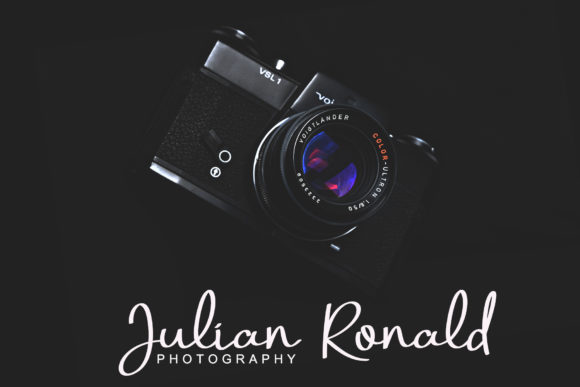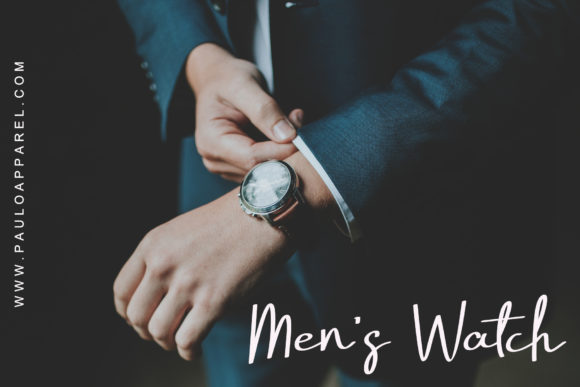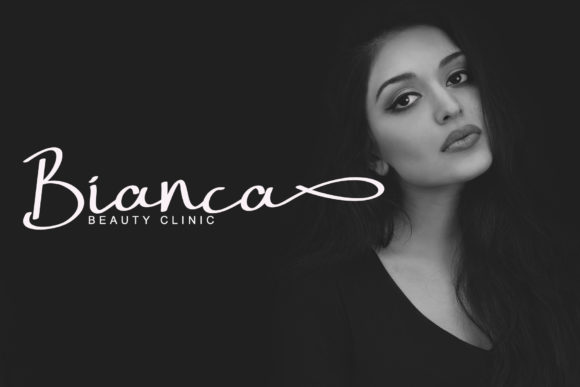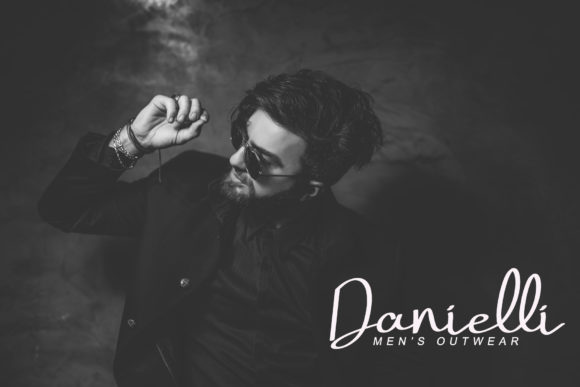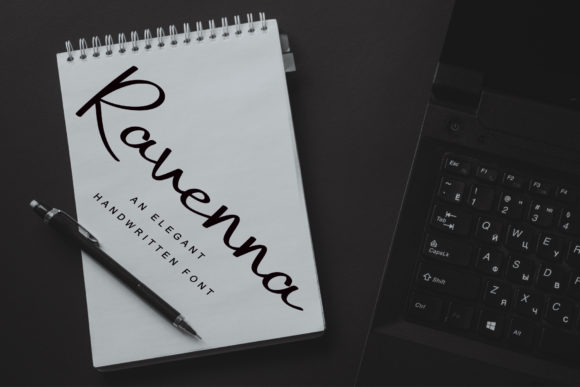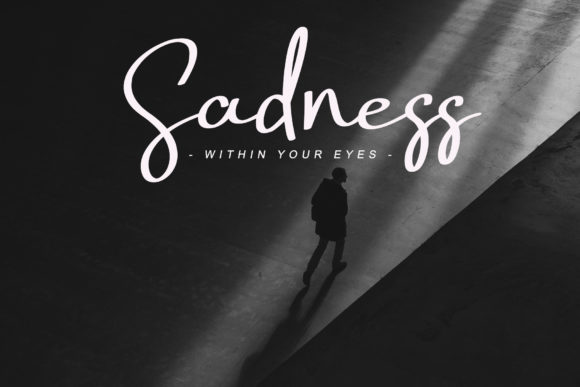
Introduction to Ravenna Font
Have you ever been stuck in a design rut, unsure of how to bring a creative project to life? Perhaps it’s the perfect font that’s been missing, the one that adds that extra touch of elegance and sophistication. For designers, finding the right font can be a game-changer, elevating a design from ordinary to extraordinary. Enter the Ravenna Font, a high-quality script font that’s sure to inspire and captivate.
With its unique charm and personal look and feel, the Ravenna Font is the perfect design resource for any creative project. Whether you’re working on a free download or a paid commission, this font is sure to make your design stand out. Plus, with its transparent background, it’s easy to integrate into any design without distractions.
Key Features of Ravenna Font
- High-quality design: The Ravenna Font is a high-quality design resource ideal for creative projects.
- Transparent background: This font features a transparent background, allowing for easy integration with various design elements.
- Unique characteristics: The font’s unique characteristics make it stand out from other fonts, adding a touch of elegance to any design.
- Design versatility: The Ravenna Font is highly versatile, making it suitable for a wide range of creative projects, from logos and branding to typography and packaging.
Honest Review: Ravenna Font
As a designer, I’m always on the lookout for high-quality design resources that can elevate my creative projects. The Ravenna Font is a great addition to my toolkit, and I’m excited to share my thoughts on it.
Here’s what I like about the Ravenna Font: ✨ It has a beautiful, elegant design that’s perfect for a wide range of creative projects, from wedding invitations to art prints. ✨ It’s highly customizable, with a transparent background that makes it easy to layer with other design elements. ✨ The font is also available for free download, which is a major bonus for designers on a budget.
That being said, there are a few limitations to the Ravenna Font that I want to mention: ⚠️ It’s not suitable for all types of projects, particularly those that require a bold or sans-serif font. ⚠️ The font can be a bit difficult to read at small sizes, so it’s best used for larger-scale designs.
Overall, I’m really impressed with the Ravenna Font and would highly recommend it to designers who are looking for a high-quality, elegant font for their creative projects.
Tips for Getting the Most Out of Ravenna Font
When using the Ravenna Font, consider the following tips: download the high-quality version for the best results, use it as a design resource for your creative projects, and experiment with different font sizes and styles to achieve the desired effect.
The Ravenna Font is ideal for use in creative projects, such as logo designs, infographics, and marketing materials. It is also perfect for use in presentations, documents, and other business materials where a high-quality, eye-catching font is needed.